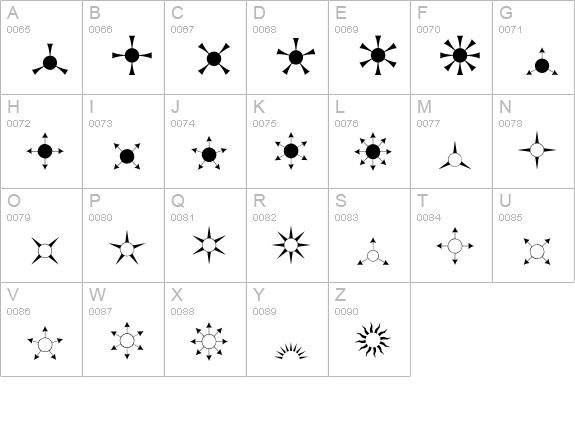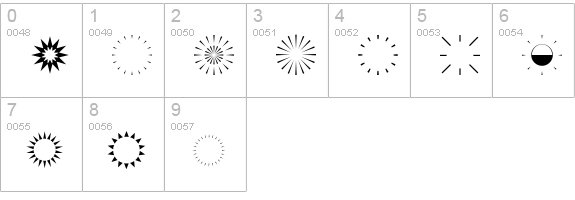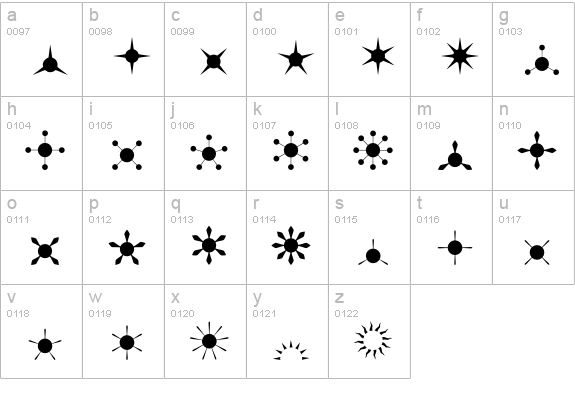
AltemusSuns Font Details
AltemusSuns is a striking and versatile font that exudes elegance and sophistication. Its intricate details and unique design make it perfect for a wide range of creative projects, from branding to editorial design. The sleek lines and modern aesthetic of AltemusSuns add a touch of contemporary flair to any project, making it a standout choice for designers looking to make a bold statement. What's even better is that AltemusSuns is available for free download at FontsMarket.com. This means that you can access this stunning font at no cost, allowing you to elevate your designs without breaking the bank. Don't miss out on the opportunity to add AltemusSuns to your font collection and bring a touch of luxury to your next project. Download it today and let your creativity shine!